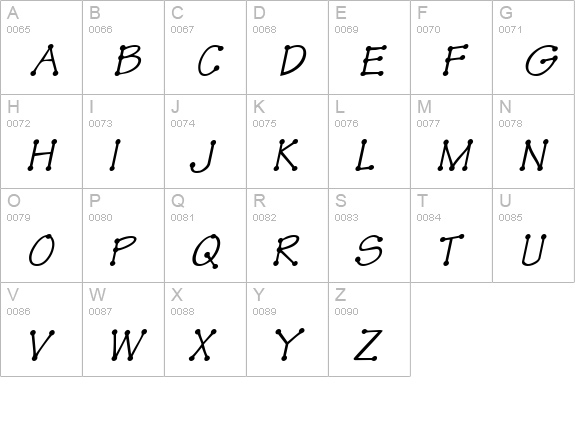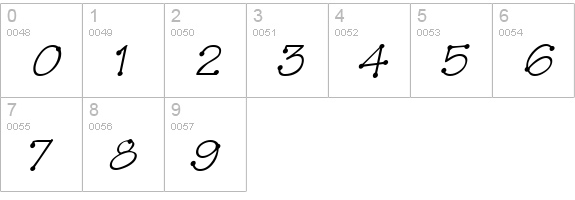
TinkerToy Oblique is a distinctive, italic variant in the TinkerToy typeface family \xE2\x80\x94 well suited to design and typography projects.
TinkerToy Oblique font is a whimsical and playful typeface that will bring a touch of fun to any design project. Its unique and quirky style is reminiscent of the classic TinkerToy construction set, with its interlocking shapes and creative possibilities. The oblique slant adds an extra dynamic to the font, giving it a sense of movement and energy. This font is perfect for adding a lighthearted and imaginative touch to children's books, toy packaging, invitations, and more. Its bold and legible letterforms ensure that your message will be clear and captivating, while still maintaining a sense of playfulness. One of the best things about TinkerToy Oblique font is that it is freely available to download at FontsMarket.com. This means that you can easily add this delightful font to your collection without breaking the bank. Whether you're a professional designer or simply a creative enthusiast, this font is a fantastic addition to your toolkit. So why not let your creativity run wild with TinkerToy Oblique font? Download it now from FontsMarket.com and start adding a touch of whimsy to your designs. With its playful charm and effortless style, this font is sure to bring joy and delight to any project.